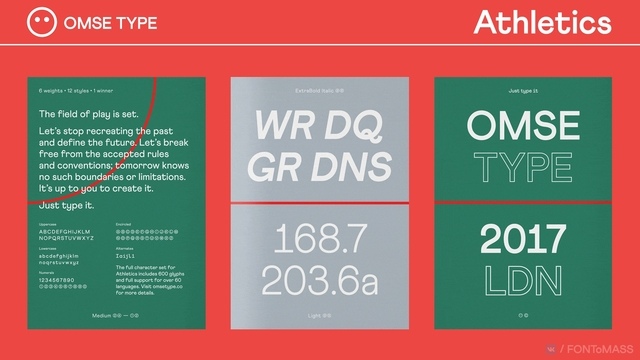
Athletics Font
The Athletics Font is a dynamic, sporty, and powerful typeface designed to convey speed, energy, and strength. With its bold, blocky letterforms and strong lines, it's the perfect choice for a wide variety of projects related to sports, fitness, and active lifestyles. Use it for team logos, athletic apparel, gym branding, event posters, and sports magazine headlines. The Athletics Font's energetic and confident style makes it ideal for any design that needs to project a sense of movement and competitive spirit.
What makes the Athletics Font so exciting is its raw, high-energy aesthetic. It's a font that doesn't just display text; it captures the essence of action and determination. The robust and impactful characters give your design a feeling of power and forward momentum, making your message resonate with audiences. This is the font you choose when you want to inspire, motivate, and make a bold, unforgettable statement.
The Athletics font family is designed for maximum impact, providing a complete set of uppercase letters, numbers, and punctuation. While it's primarily a display font, its clean structure ensures excellent readability, making it a versatile tool for creating dynamic compositions. This full-featured family gives you all the tools you need to create a cohesive and powerful design.